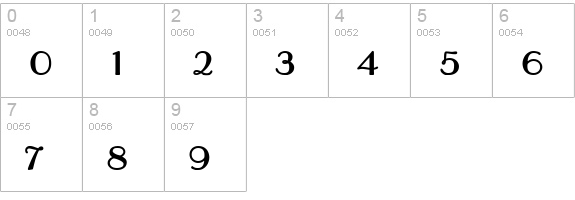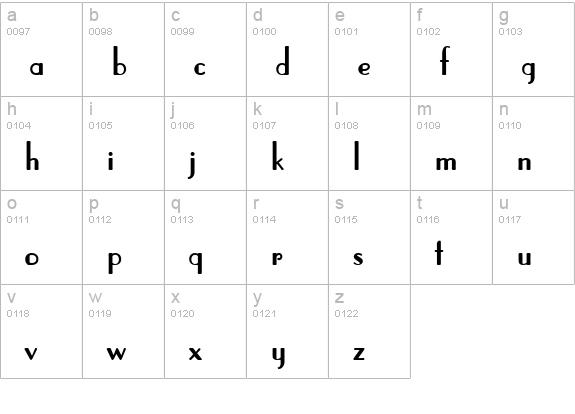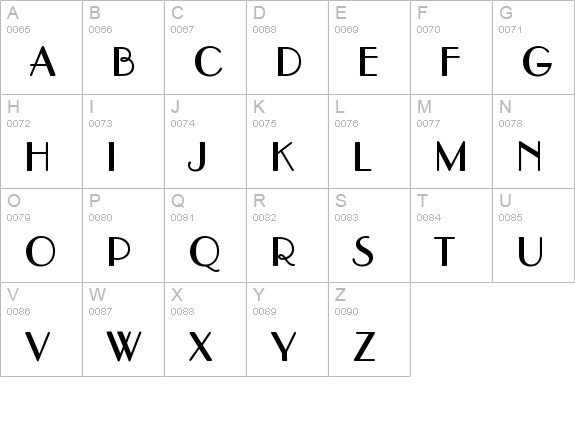
Paris Bold is a strong, high-contrast variant in the Paris typeface family \xE2\x80\x94 well suited to headlines, attention-grabbing titles, and strong calls-to-action.
Paris Bold is a striking and contemporary font that exudes elegance and sophistication. With its strong and confident letterforms, this typeface is perfect for making a bold statement in any design project. The sharp edges and clean lines of Paris Bold add a touch of modernity, while its rounded corners offer a subtle softness that balances its overall boldness. This font is not only visually captivating, but also highly versatile. It can be used for a wide range of purposes, from logo design and branding to headlines and titles. Its bold weight commands attention and ensures that your message is delivered with impact. One of the most remarkable aspects of Paris Bold is that it is freely available to download at FontsMarket.com. This means that designers and creatives can access this stunning font without any cost, making it an incredibly valuable asset. Whether you are a professional designer or a hobbyist, having access to a high-quality font like Paris Bold can greatly enhance your creative projects. Paris Bold is designed with meticulous attention to detail, ensuring that each character is visually balanced and harmonious. The font offers an extensive character set, including uppercase letters, lowercase letters, numerals, punctuation marks, and special characters. This versatility allows you to create beautiful and cohesive designs that express your unique style and vision. Whether you are working on a print design, a website, or any other visual project, Paris Bold will effortlessly elevate your work to new heights. Its bold and commanding presence will grab attention and leave a lasting impression on your audience. Download Paris Bold for free today at FontsMarket.com and experience the power of this exceptional font. With its modern aesthetic, versatility, and accessibility, Paris Bold is the perfect choice for designers who want to make a statement and create impactful designs. Start using Paris Bold and unleash your creativity like never before.